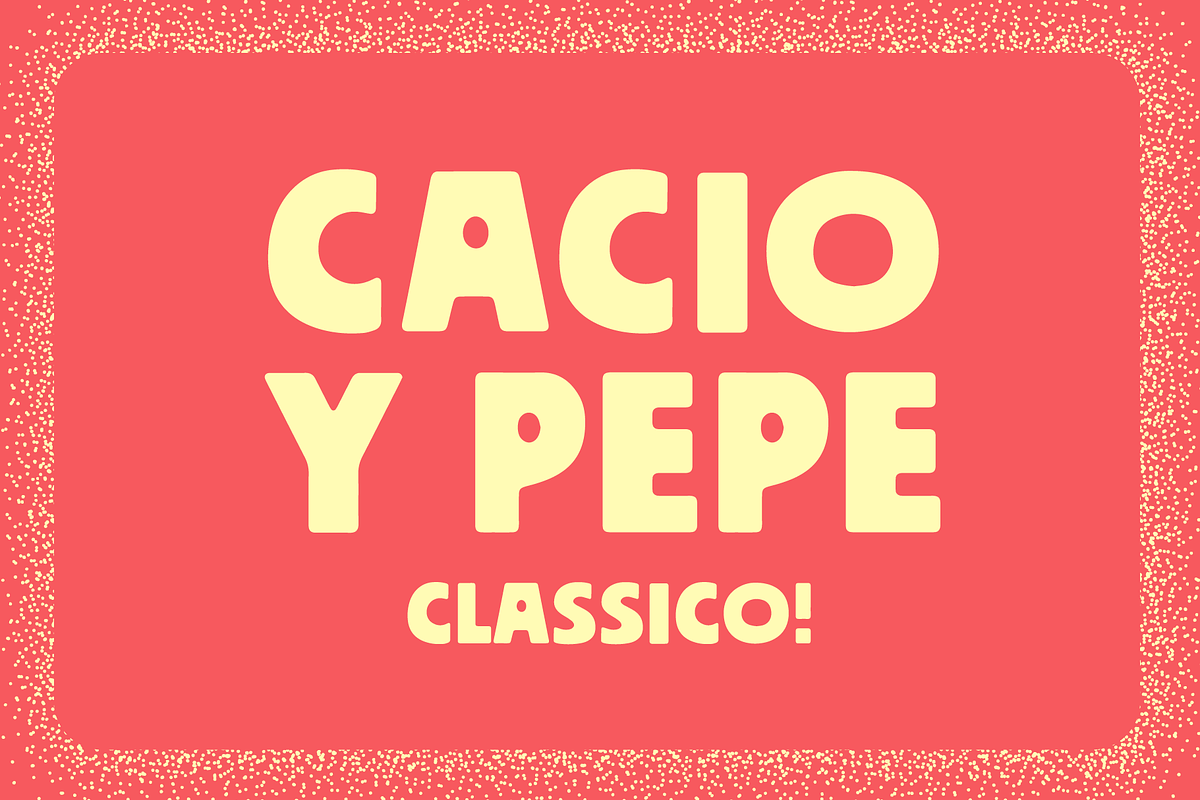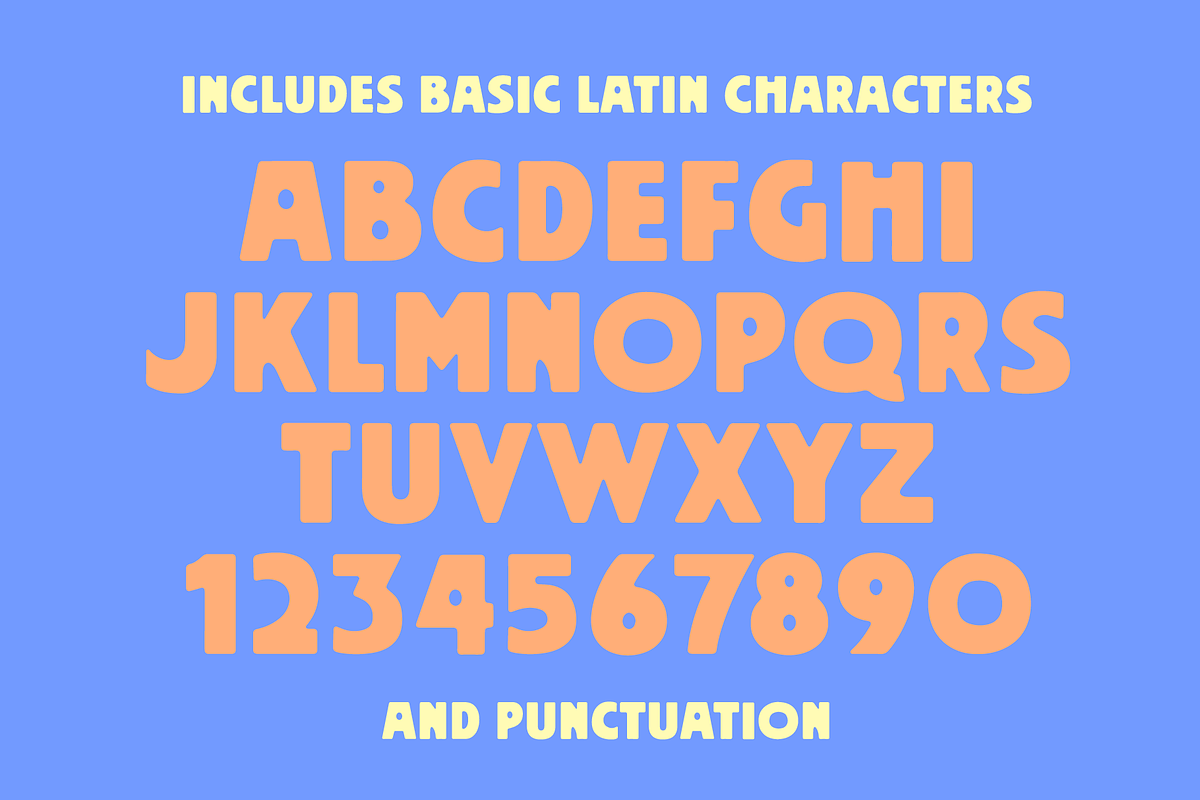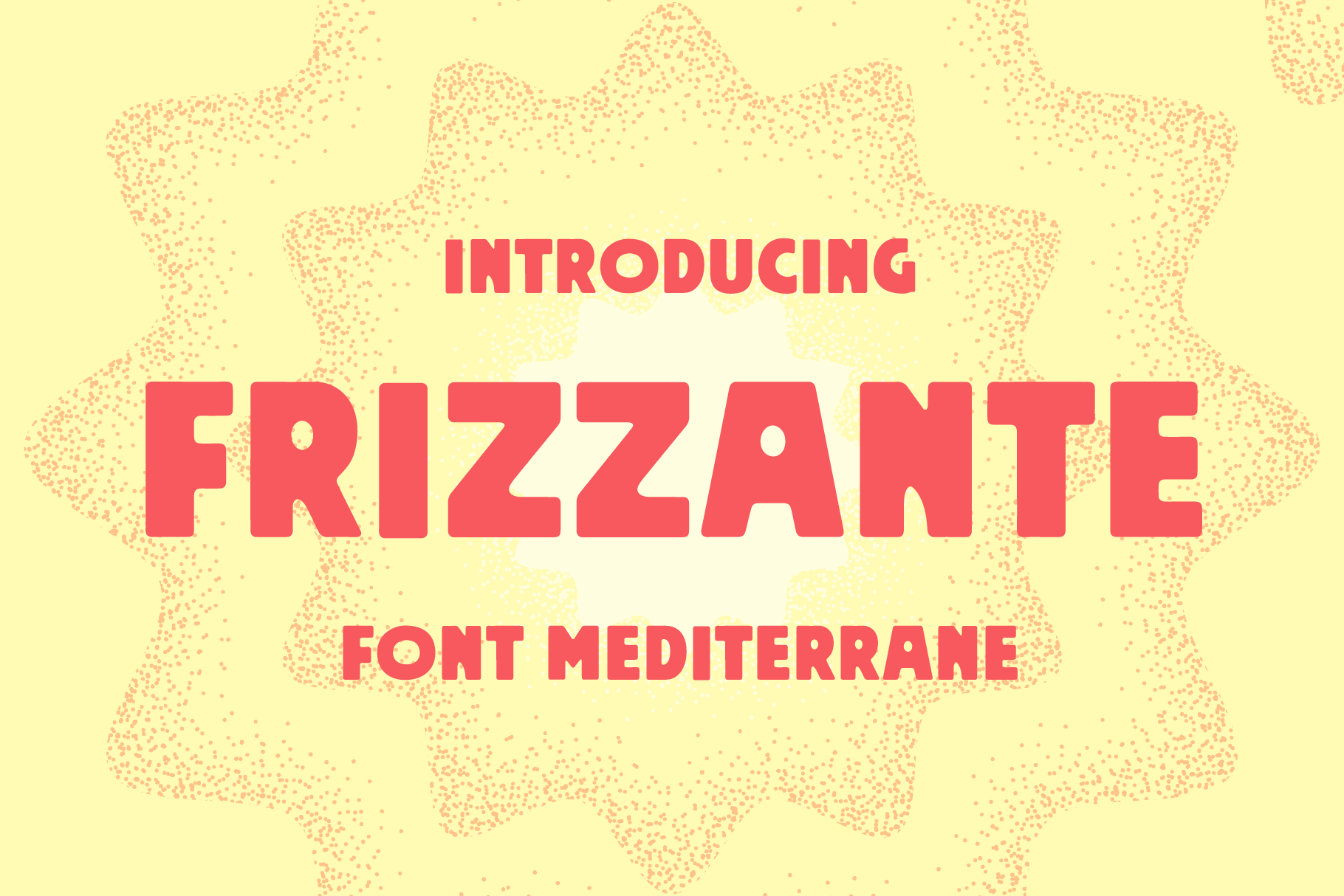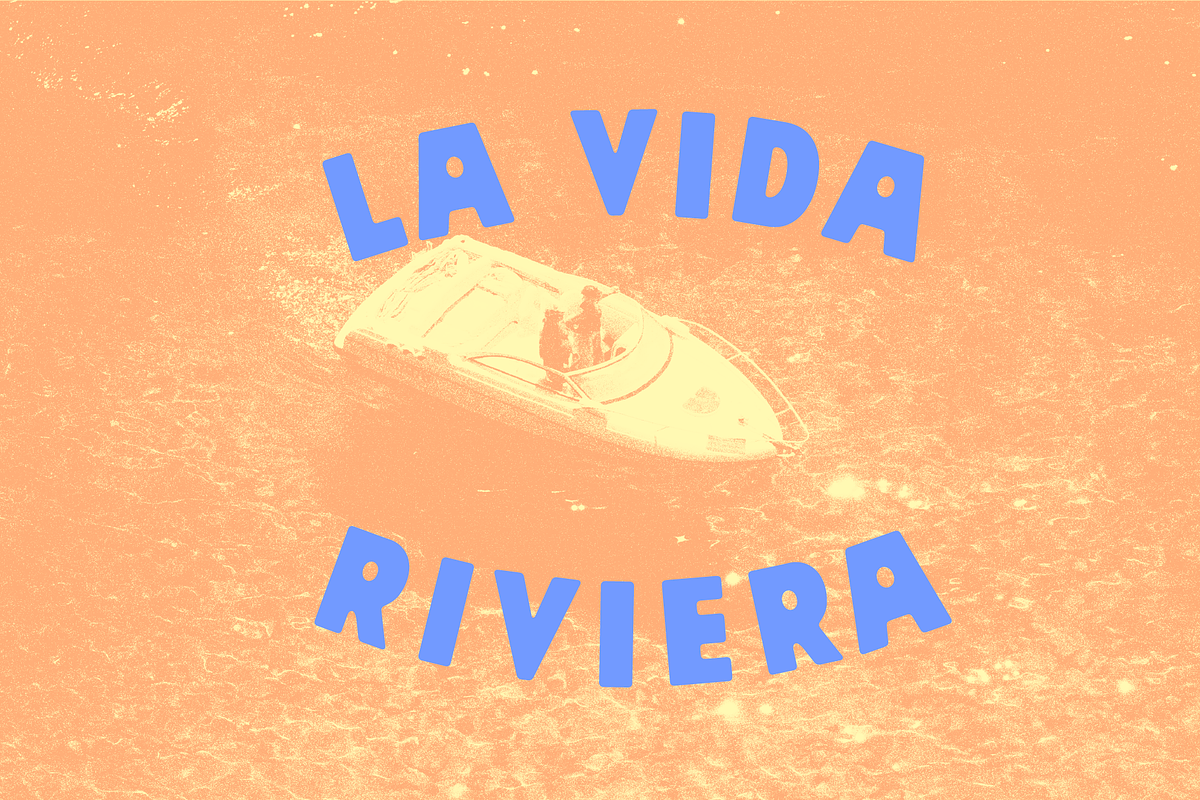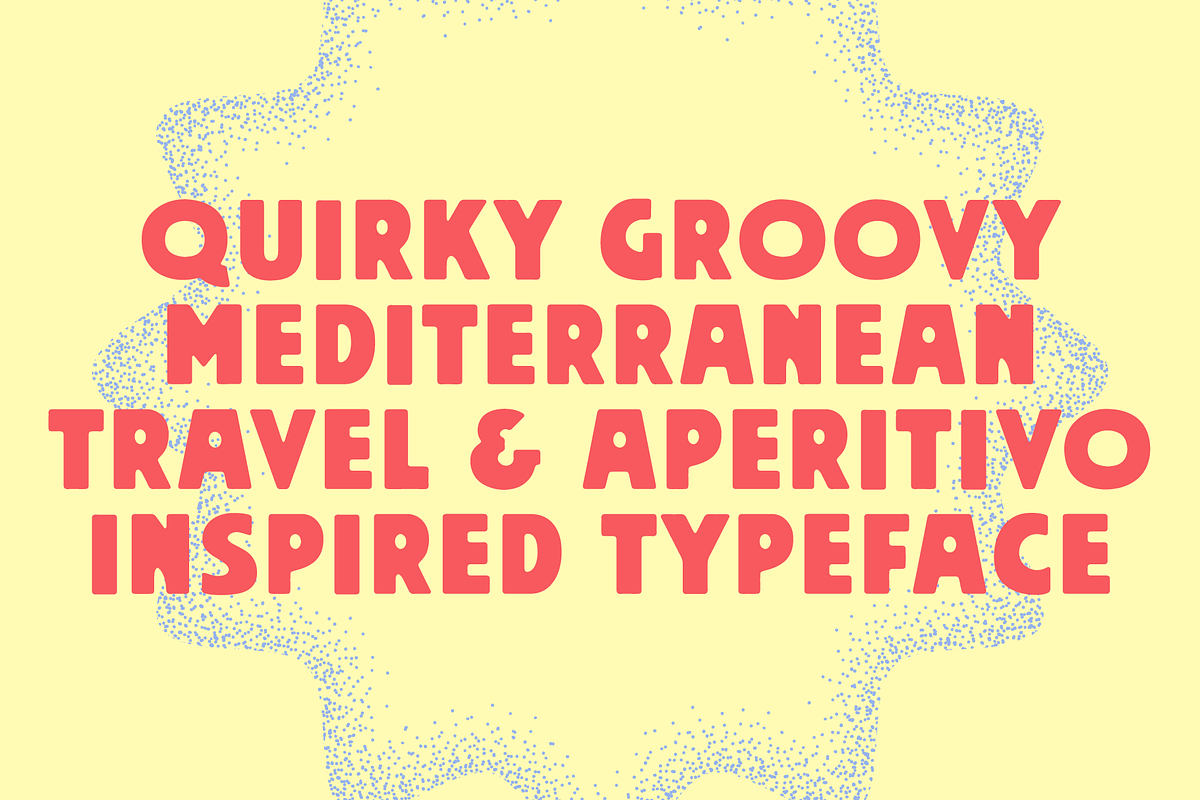
Frizzante Mediterranean Font
Frizzante is a playful and groovy font inspired by a retro mediterranean lifestyle. The letterforms are inspired by old aperitivo advertising as well as vintage luggage labels.
Perfect for logos, headings, packaging and menus.
Includes all basic latin characters and punctuation.